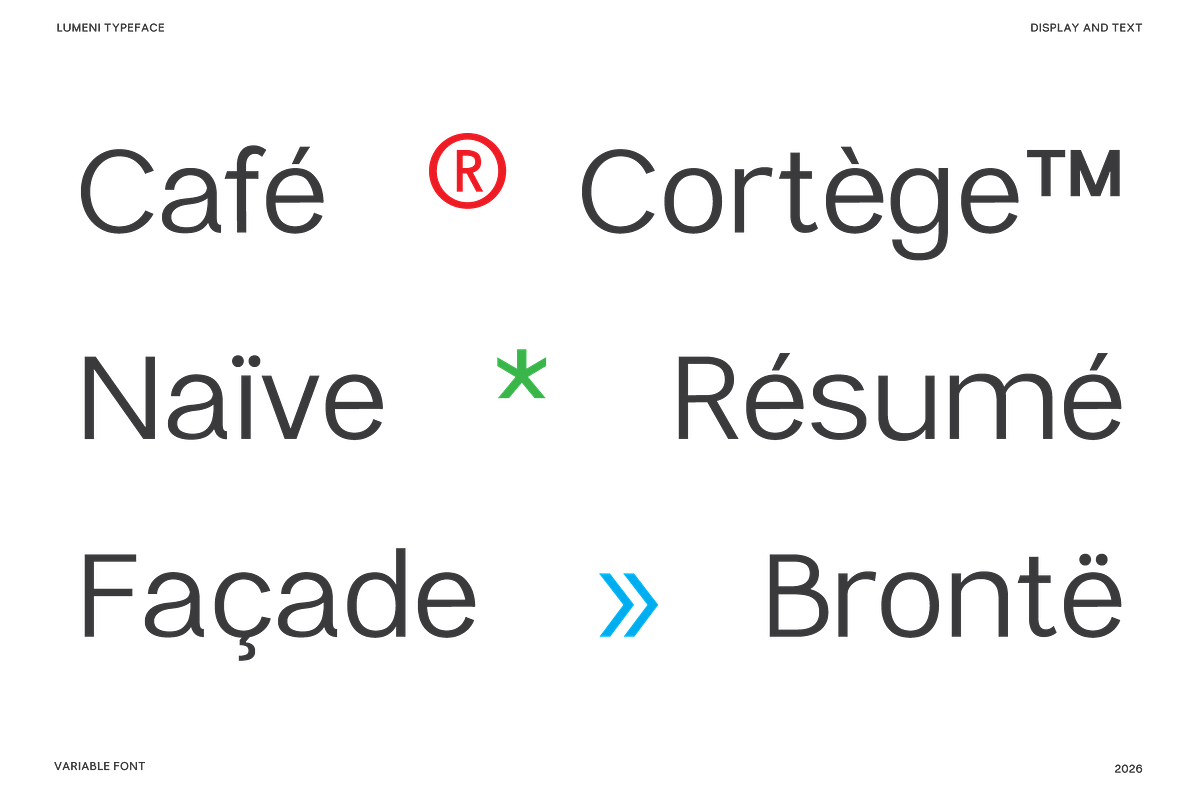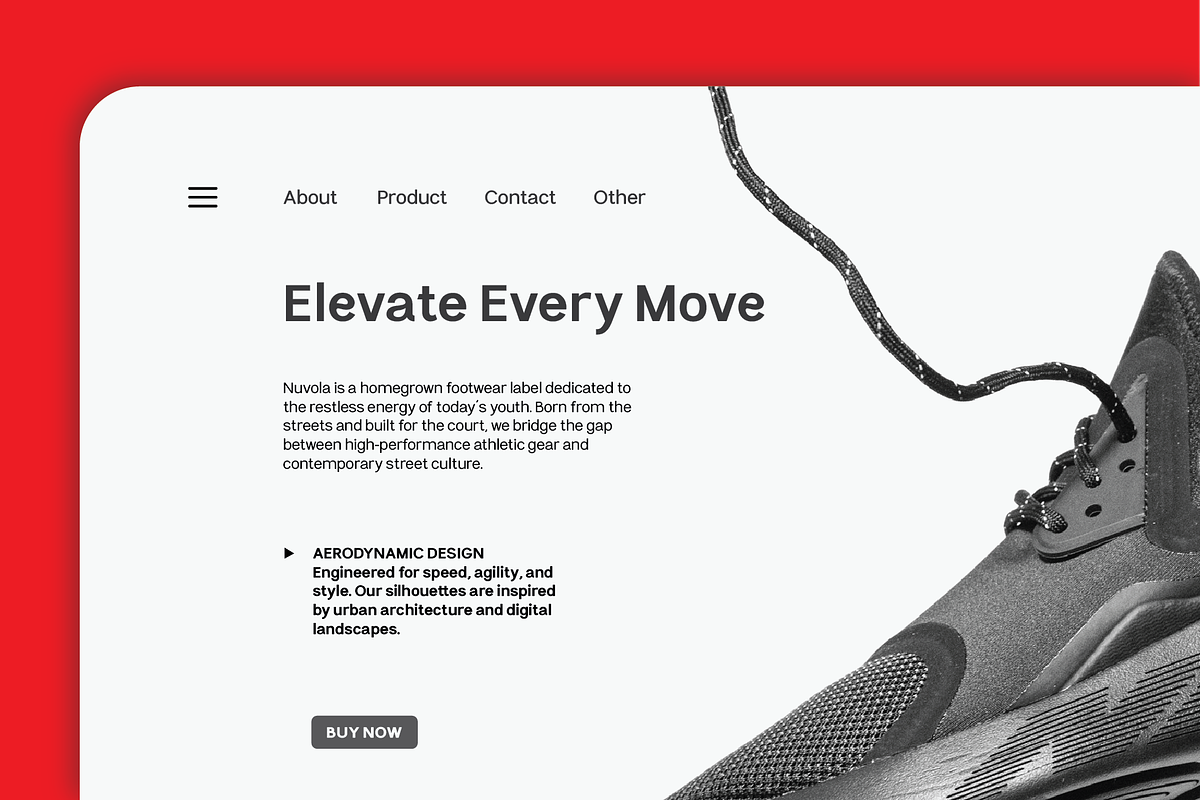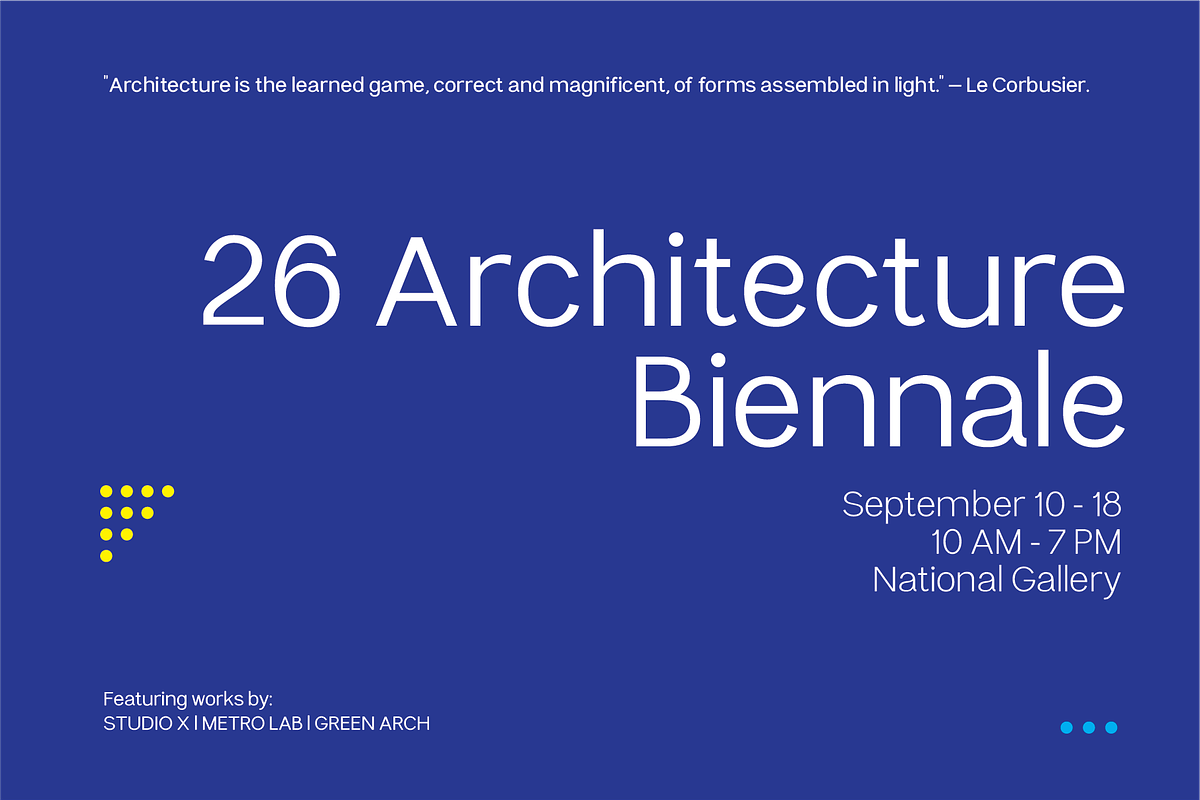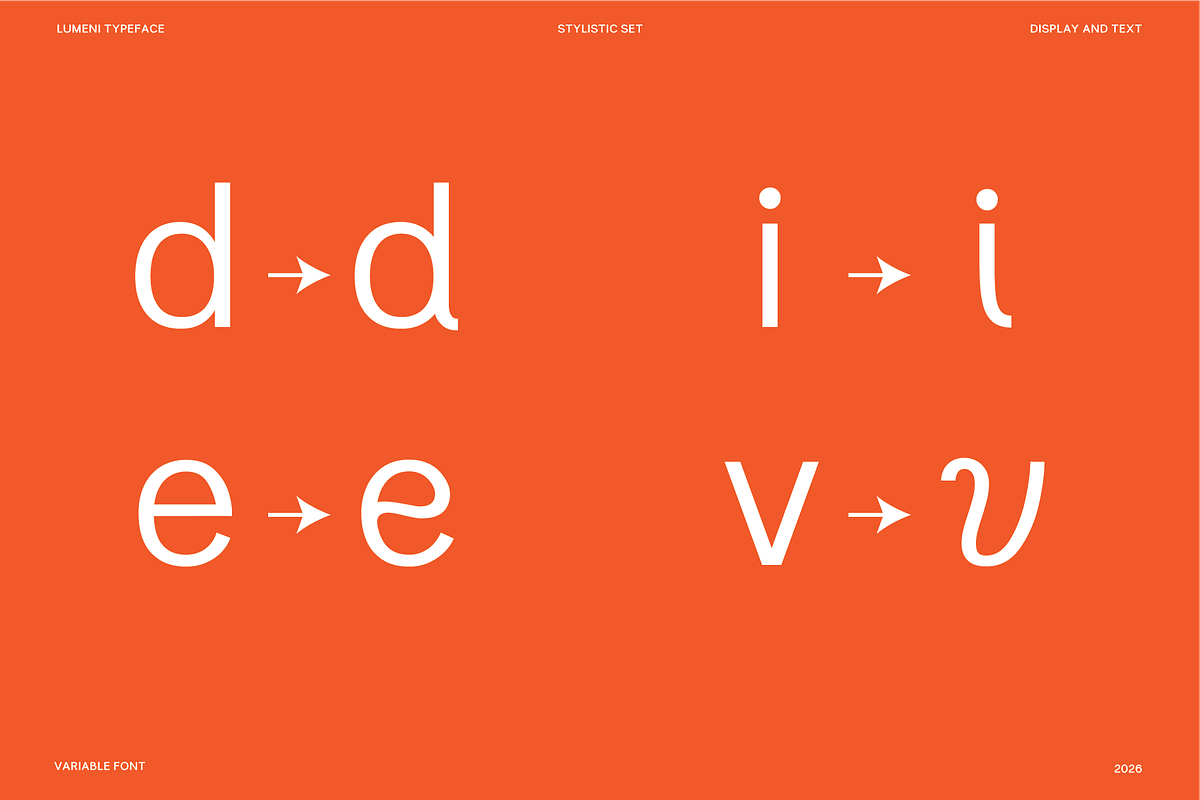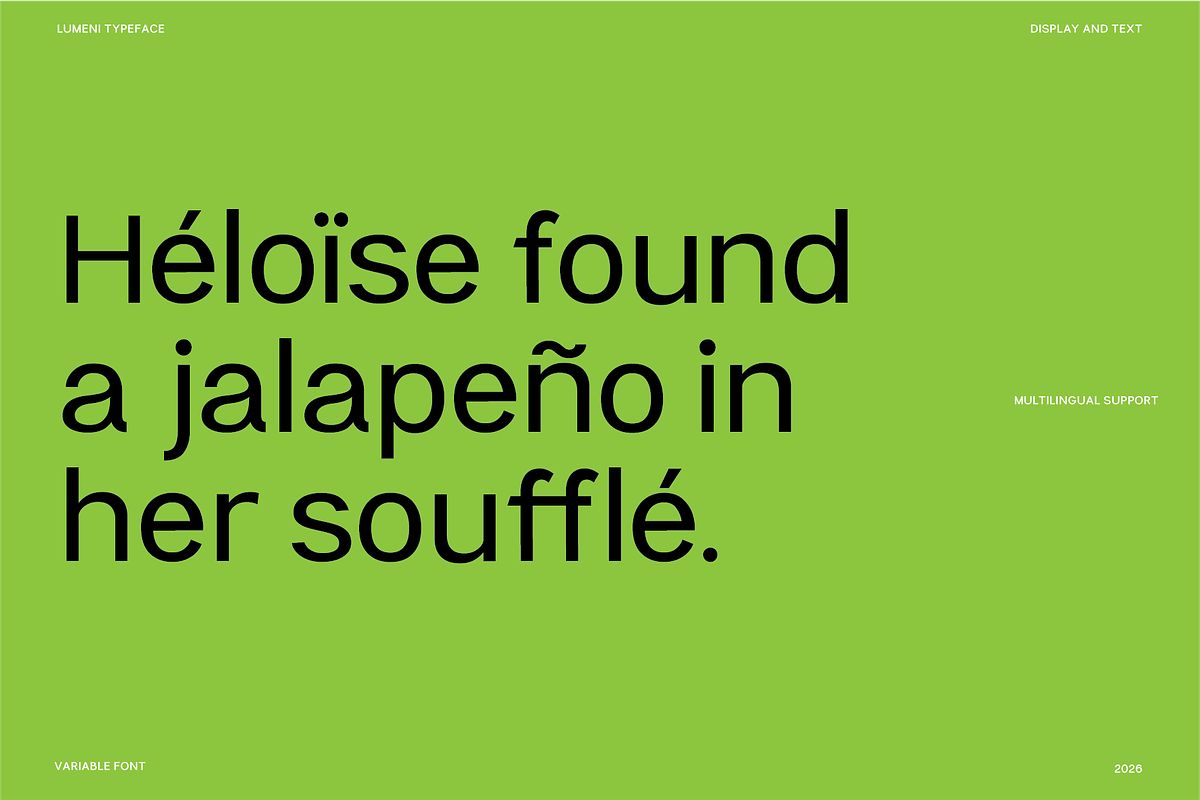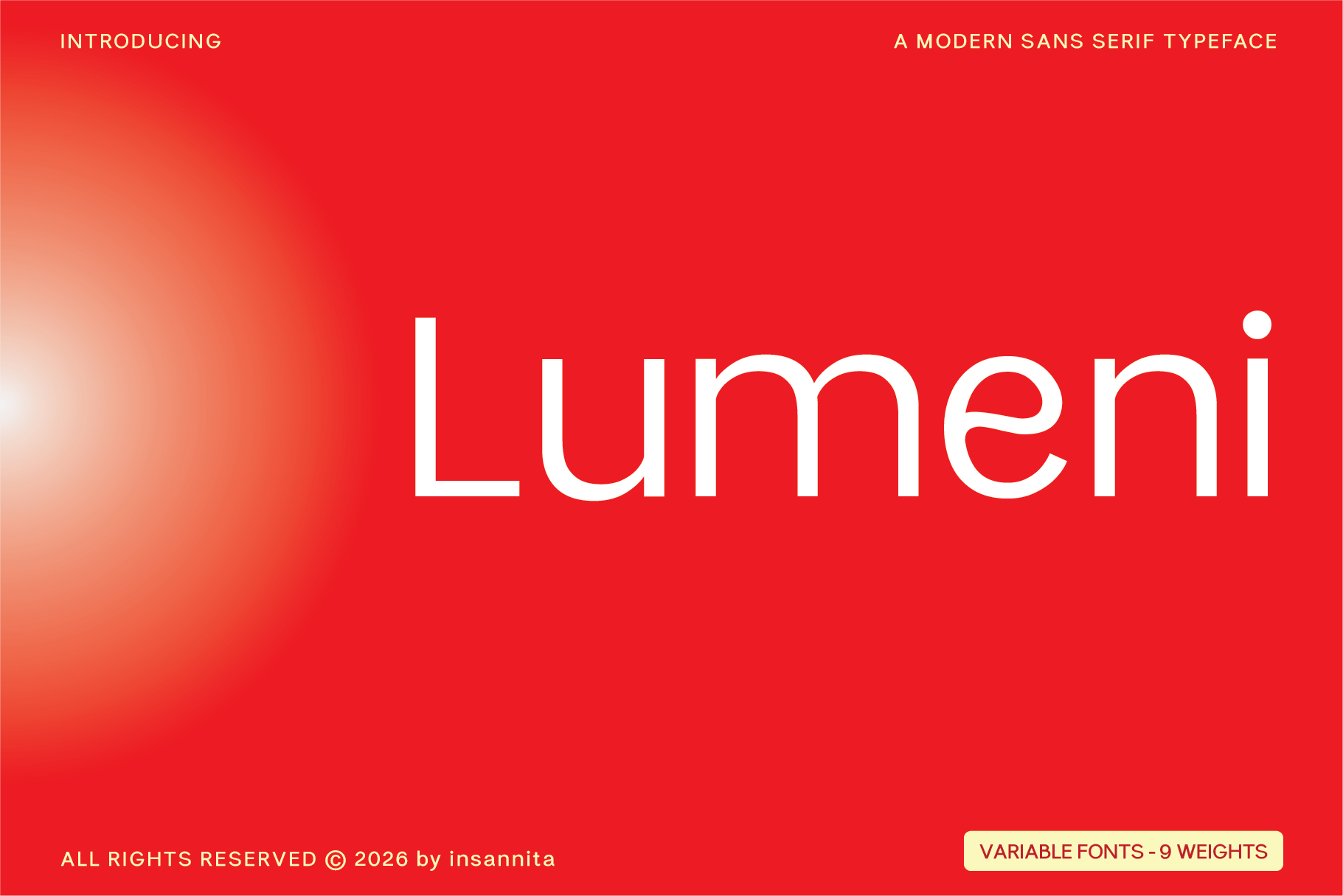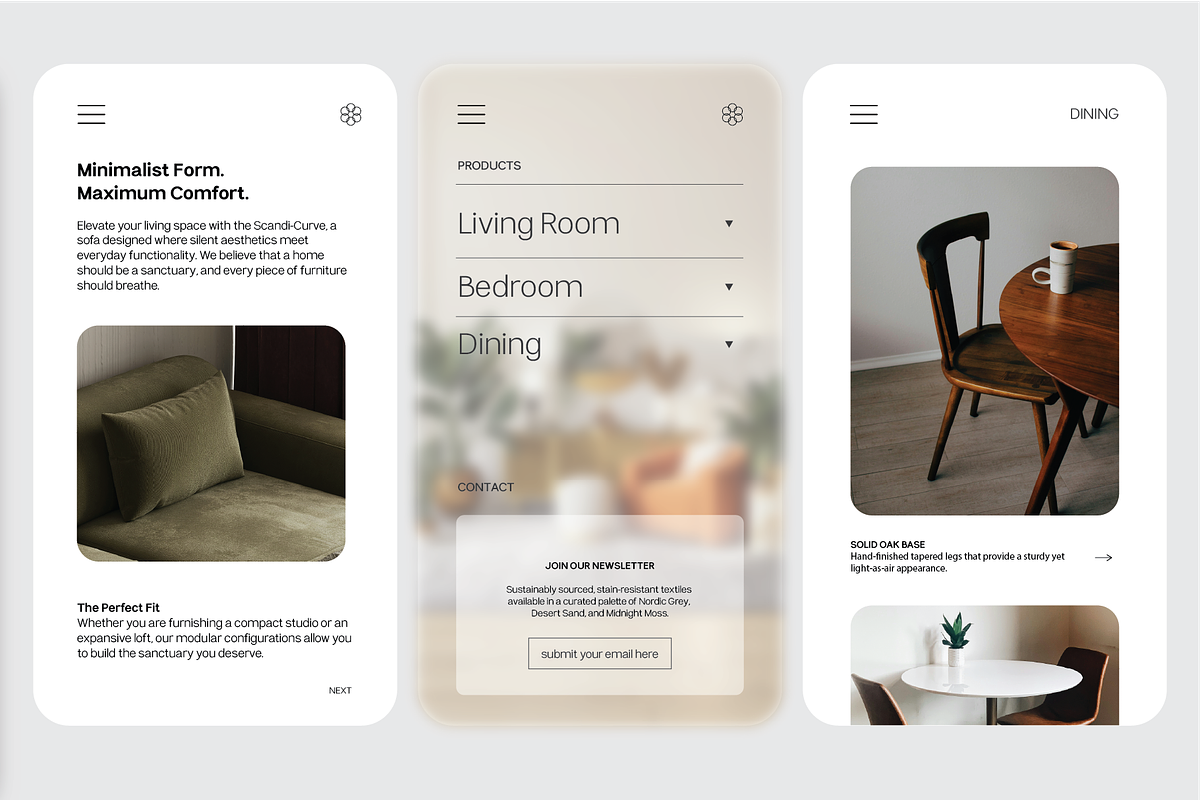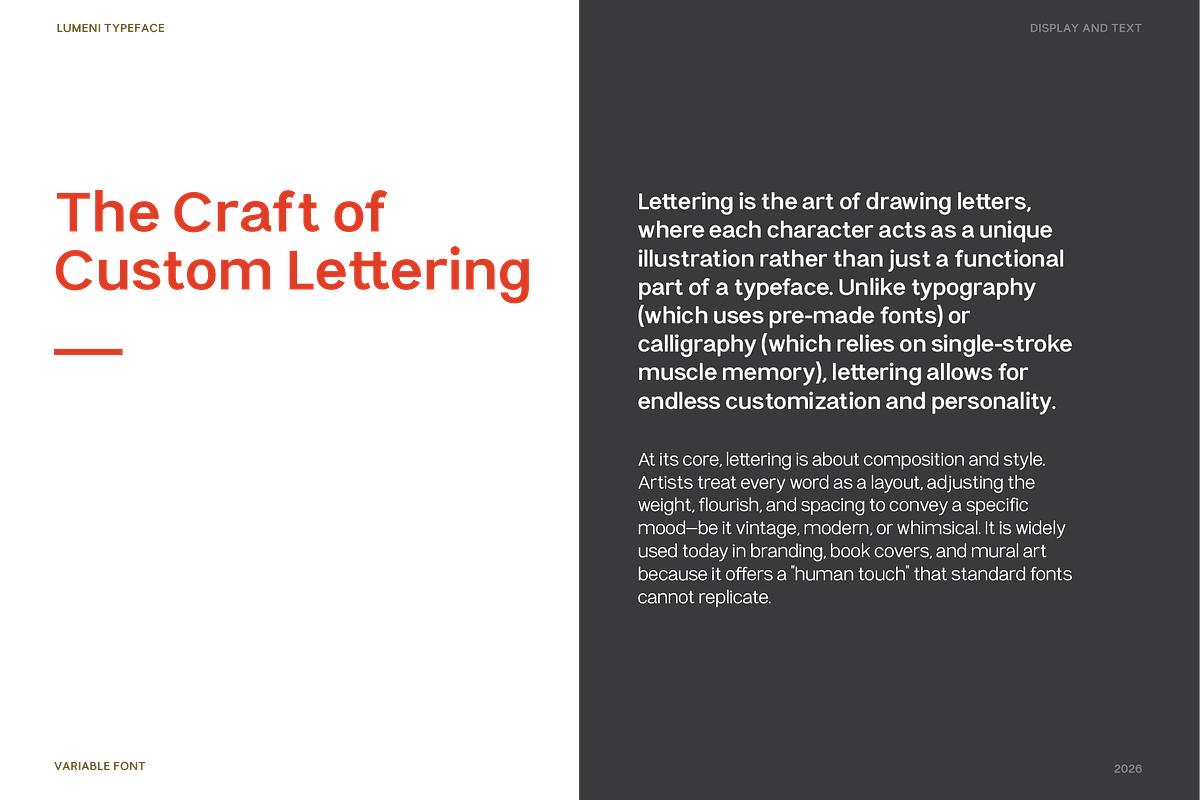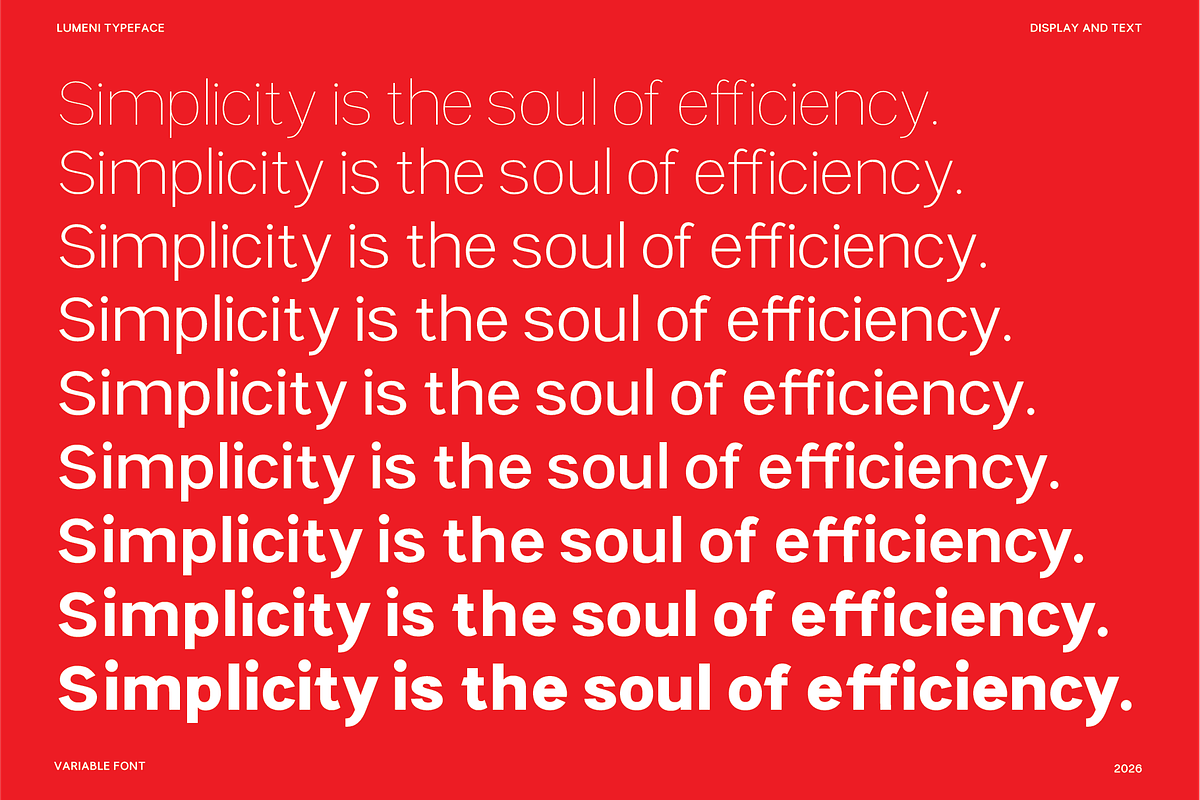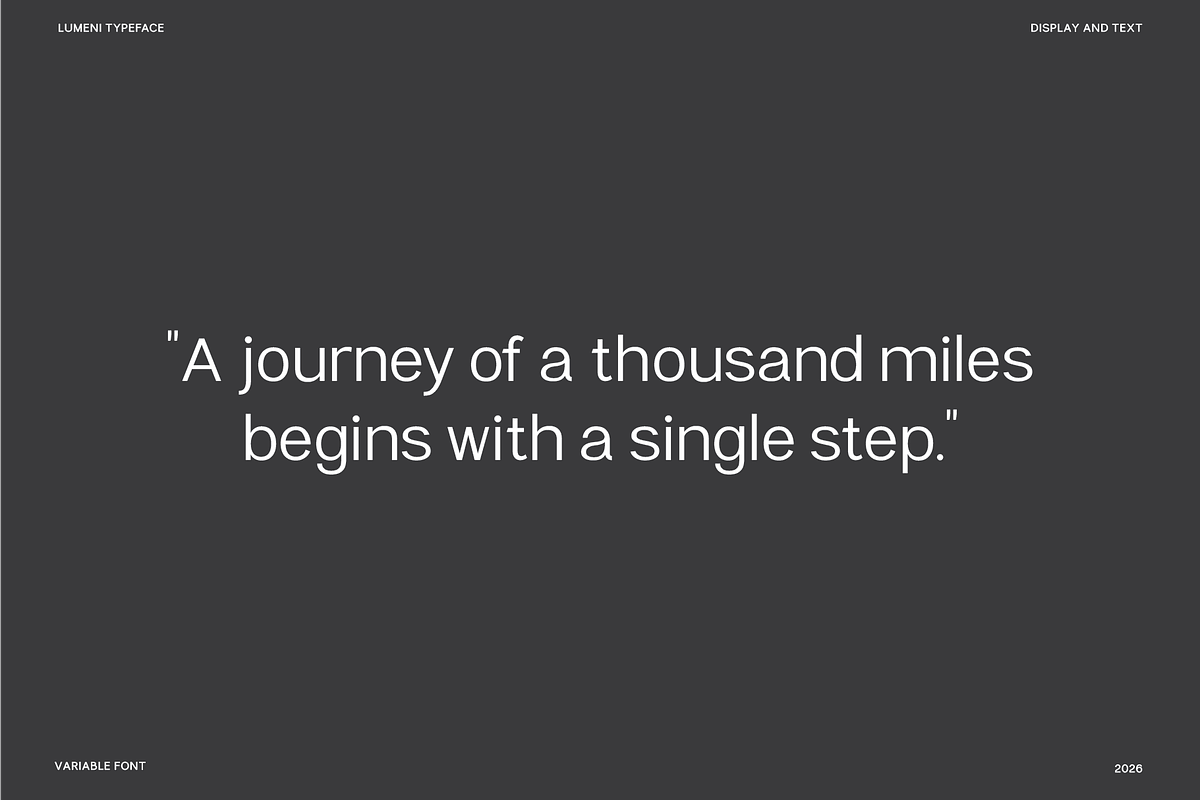
Lumeni Variable Font
Lumeni is a modern sans-serif font that includes nine weights from Thin to Black. This variable font available in basic character and also Stylistic Set.
This variable font captures a huge range for the design and creation of your project. With Lumeni you can create logos, labels, use in advertising, packaging, branding, book covers and magazines, cosmetics, banners, posters, headings, descriptions and much more.
Support for Basic Latin, Western European, Central European, South Eastern European, South American, Oceanian, and Esperanto.